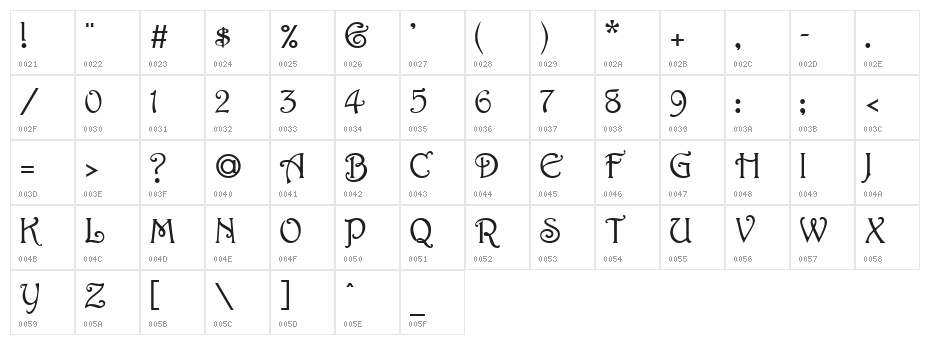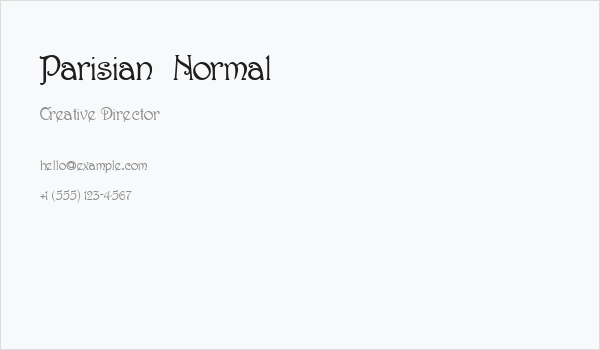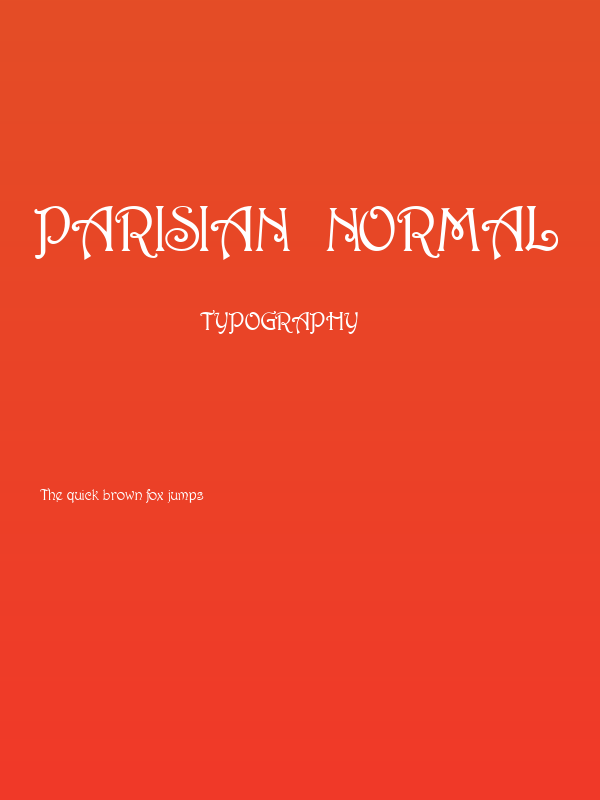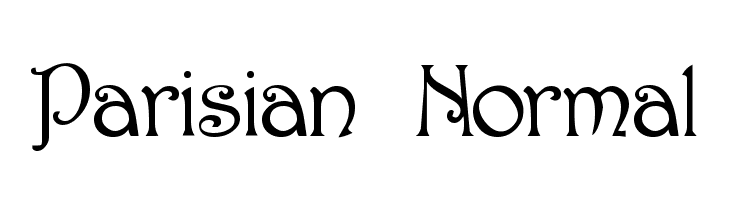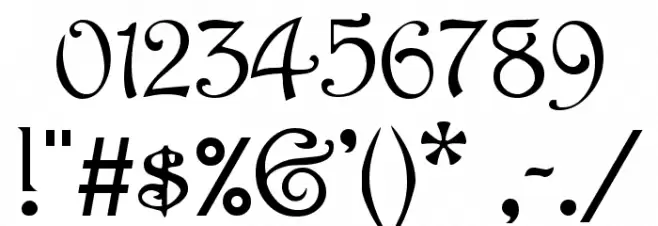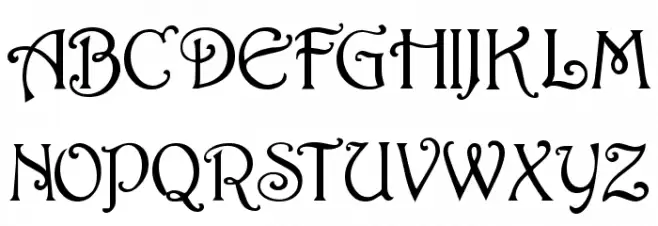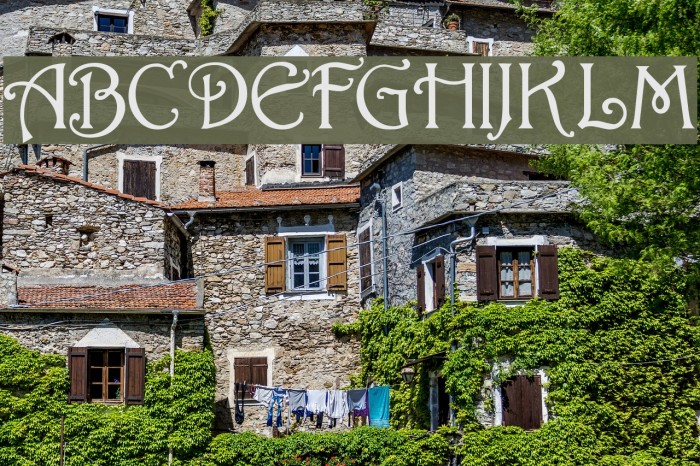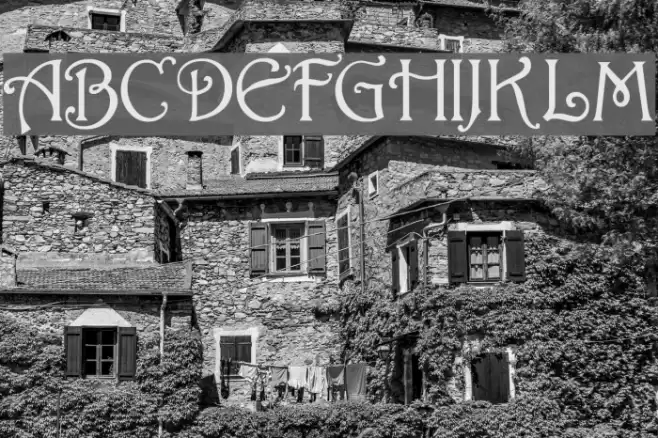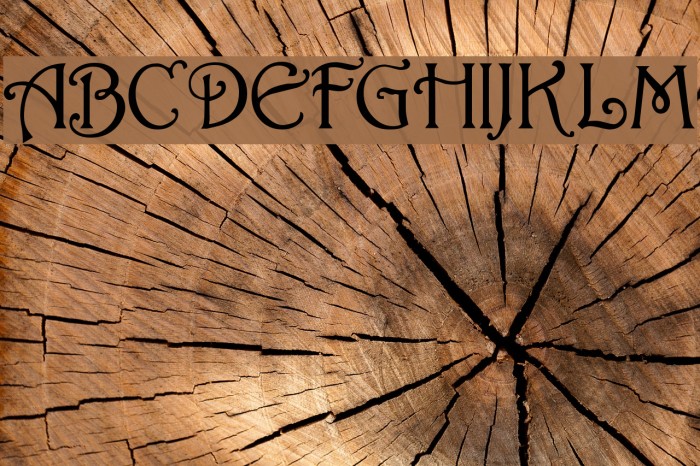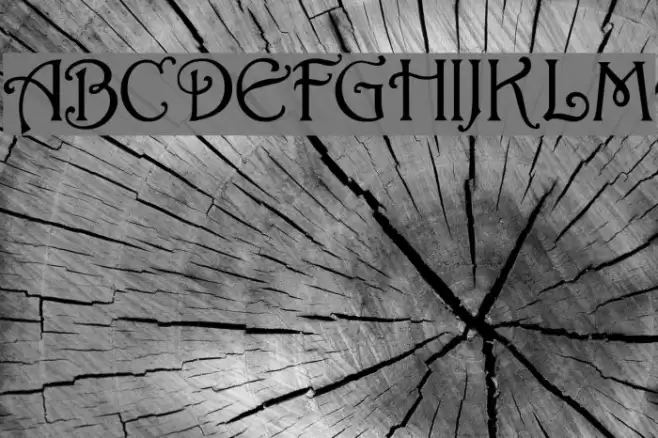
Parisian Normal Font
Parisian Normal Description
This font exhibits a decorative and elegant style with a strong influence of classic calligraphy. The characters are adorned with intricate swirls and flourishes, giving it a sophisticated and artistic appearance. The uppercase letters are particularly ornate, featuring extended serifs and curved strokes that add a sense of movement and grace. The lowercase letters maintain a consistent style, with smooth curves and a slightly condensed form. The numerals are uniquely styled, matching the overall decorative theme. Special characters are equally embellished, enhancing the font's artistic flair. This font is ideal for projects that require a touch of elegance and creativity.
| Use Case | Headlines, Logos, Invitations |
| Proposed Projects | Ideal for wedding invitations, luxury branding, artistic posters, and decorative headlines. |